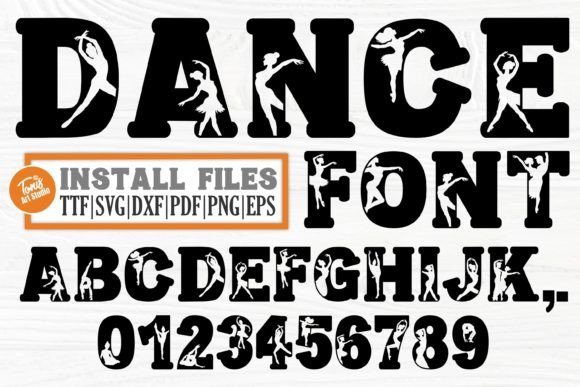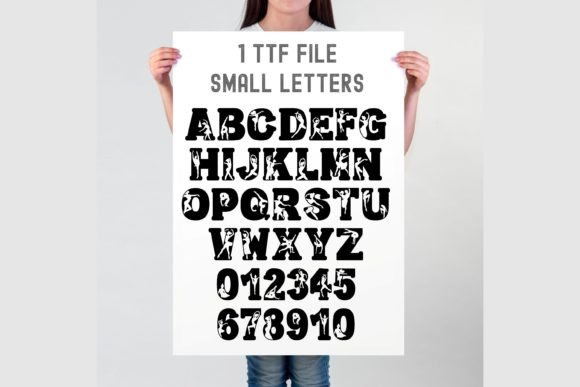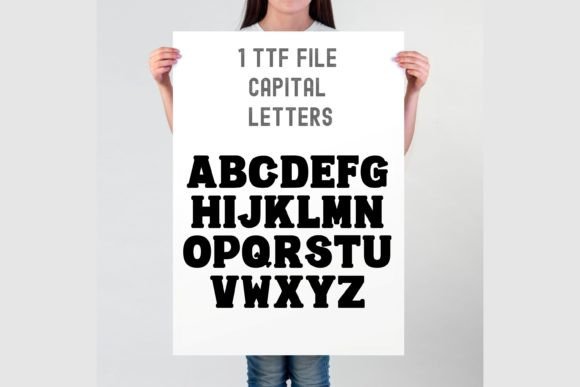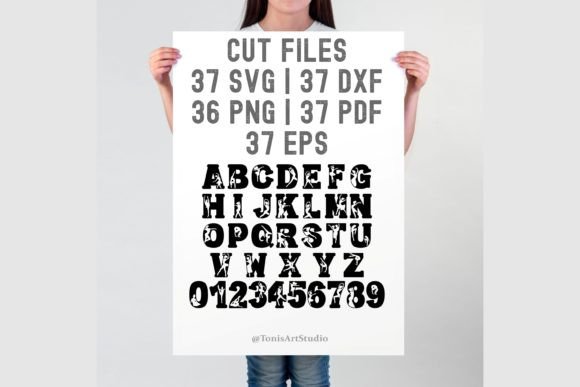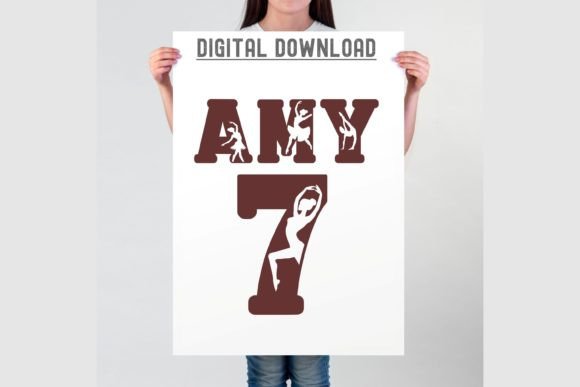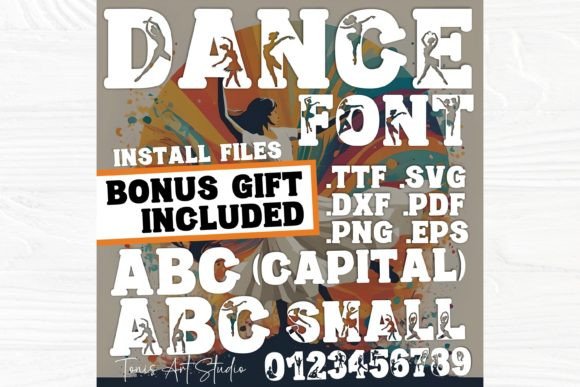
Unlock the Power of Dance Font: Elevate Your Crafting Projects with Stunning Alphabet Svg
Are you a dance enthusiast looking for a unique way to express your creativity? Or perhaps a designer seeking to add a touch of elegance and movement to your crafting projects? Look no further than the Dance Font Alphabet Svg collection. This stunning set of digital files includes Dancing Letters Svg, Dancer Silhouette Svg, and Monogram Svg Files, perfect for transforming your crafting projects into dynamic works of art.
The Perfect Blend of Style and Versatility
The Dance Font Svg collection is designed to inspire creativity and style in crafters and designers alike. With its unique and dynamic designs, this set of digital files is perfect for a wide range of applications, from personalizing gifts to decorating your space. Whether you’re a seasoned crafter or a beginner, this Dance font Svg is sure to elevate your projects and add a touch of sophistication.
What’s Included in the Dance Font Alphabet Svg Collection?
The Dance Font Alphabet Svg collection includes a range of digital files, each designed to help you create stunning crafting projects. The collection features:
- Dancing Letters Svg: Beautifully designed alphabet letters that capture the elegance and movement of dance.
- Dancer Silhouette Svg: Delicate silhouettes of dancers, perfect for adding a touch of whimsy and style to your projects.
- Monogram Svg Files: Customizable monogram files that allow you to add a personal touch to your crafting projects.
Endless Possibilities for Crafters and Designers
The Dance Font Svg collection offers endless possibilities for crafters and designers. With these versatile designs, you can:
- Personalize gifts, such as mugs, t-shirts, and tote bags, with custom dance-themed designs.
- Create stunning wall art and decorations for your home or studio.
- Add a touch of elegance to your crafting projects, such as scrapbooking, card making, and journaling.
- Design custom dance-themed accessories, such as phone cases, laptop skins, and water bottles.
Why Choose the Dance Font Alphabet Svg Collection?
So why choose the Dance Font Alphabet Svg collection for your crafting projects? Here are just a few reasons:
- Unique and Dynamic Designs: The Dance Font Svg collection features stunning designs that are sure to add a touch of elegance and movement to your projects.
- Versatile and Customizable: The digital files in this collection are versatile and customizable, allowing you to use them for a wide range of applications.
- Perfect for Dance Enthusiasts: If you’re a dance enthusiast, this collection is perfect for you. The designs are inspired by the beauty and elegance of dance.